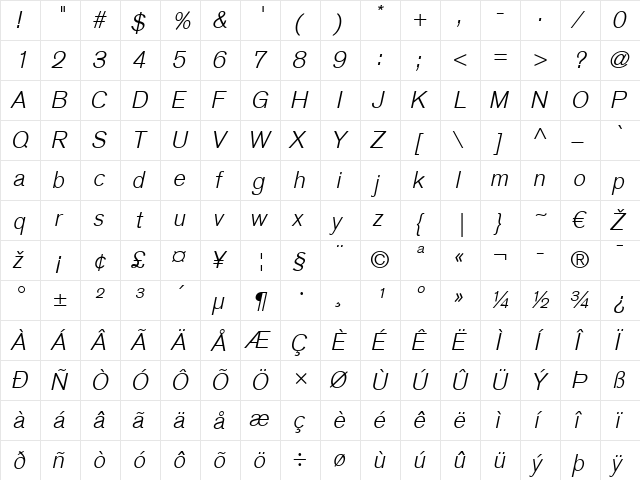
BasicCommercial LT LightItalic Regular
Design Context for BasicCommercial LT LightItalic Typeface
BasicCommercial LT LightItalic is a composed and adaptable typeface that performs quietly and consistently across a wide range of design contexts. The dynamic lean of this cut emphasises speed and emphasis in any layout. The delicate stroke weight brings airiness and refinement to layouts.
Pro Tip: Use BasicCommercial LT LightItalic for emphasis, pull quotes, and subheadings where its slanted energy can add rhythm to the layout.